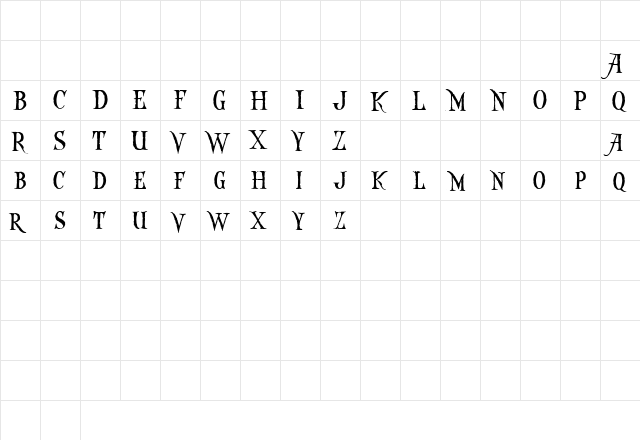
Captain Kidd Demo Regular
Design Context for Captain Kidd Demo Typeface
Captain Kidd Demo is a composed and adaptable typeface that performs quietly and consistently across a wide range of design contexts.